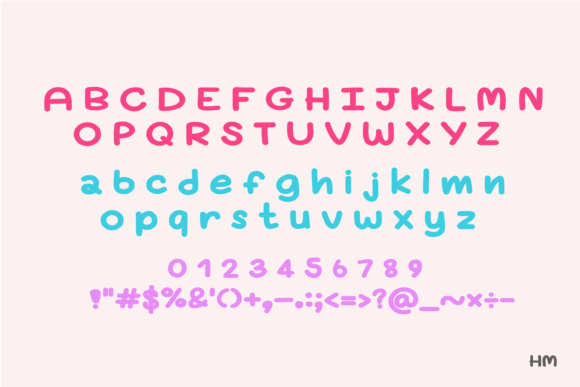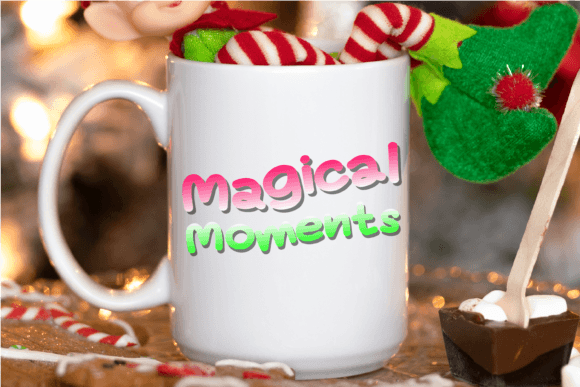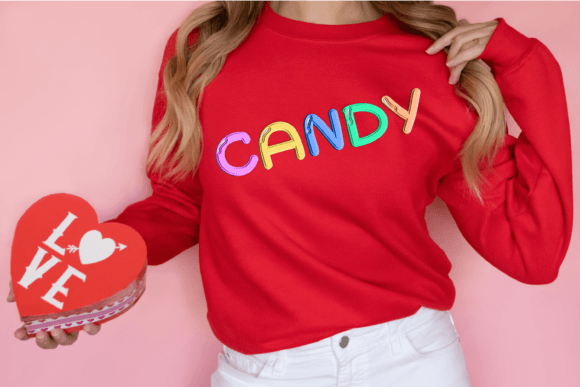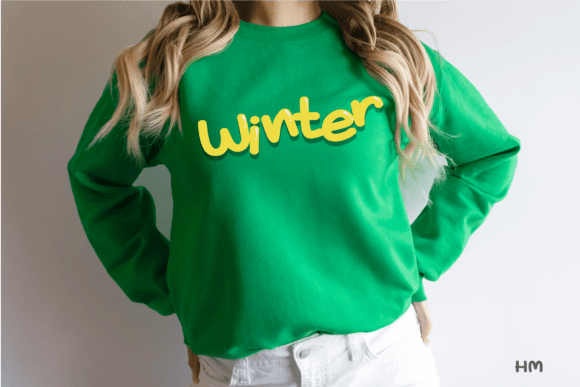
The Sweetest Addition to Your Designs: Candy Font
Have you ever stared at a blank canvas, feeling like a kid in a candy store, unsure of where to start? You know that moment when the possibilities are endless, and your imagination is bursting with ideas? That’s exactly where the magic begins – and with the right tools, your creations can come to life. Enter the delightful Candy Font, a typography treasure that’s sure to put a smile on your face.
This adorable font is more than just a pretty face; it’s a game-changer for designers. With its playful, bold, and colorful display, Candy Font is the perfect addition to any creative project. Whether you’re designing a logo, a social media graphic, or a entire brand identity, this font will bring a touch of whimsy and fun to your work.
Candy Font Key Features
- Font Family: Candy Font is a sans-serif font family designed for digital use.
- Character Count: The font includes a wide range of characters, including uppercase and lowercase letters, numbers, and punctuation marks.
- Unique Characteristics: Candy Font is known for its playful, cursive-like feel and rounded edges, making it suitable for modern and creative designs.
Candy Font Review
I recently had the chance to work with Candy Font, and I must say it was a unique experience. ✨ One of the things that worked well for me was the font’s playful and whimsical nature. It’s perfect for projects that require a touch of sweetness and fun. The font is highly customizable, allowing you to adjust the size, color, and even add special effects to make it stand out.
However, there are some limitations to consider ⚠️. The font’s versatility can also be a drawback, as it may not be suitable for more formal or professional projects. Additionally, some users may find the font’s complexity overwhelming, especially when it comes to customizing its various features.
Overall, I would recommend Candy Font for designers looking to add a pop of fun and creativity to their projects. While it may not be the best choice for every project, it’s definitely a valuable addition to any designer’s toolkit.
- Playful and whimsical design
- Compatible with multiple platforms and devices
- Relatively lightweight
Candy Font Practical Application Guide
Tips for Getting the Most Out of Candy Font
Use Candy Font to add a playful touch to your designs, especially for children’s products, party invitations, and social media graphics.
Experiment with different font sizes and colors to create a visually appealing effect.
Combine Candy Font with other creative elements, such as illustrations and graphics, to create a cohesive and engaging design.
Candy Font is perfect for:
Children’s party invitations and decorations
Food and beverage branding
Social media graphics and ads
Party and event marketing materials
Alternatives to Candy Font for Designers
Cream Soda is a cursive script font that is reminiscent of classic handwriting. It’s perfect for creating a nostalgic feel in your designs, especially when you need to add a touch of warmth and personality. Compared to Candy Font, Cream Soda has a more refined and elegant look, making it suitable for a wider range of designs, from wedding invitations to advertising materials.
Great Vibes is a modern, handwritten font that is ideal for adding a relaxed and casual feel to your designs. It’s perfect for creating a friendly and approachable tone in your branding, marketing materials, or social media campaigns. Compared to Candy Font, Great Vibes has a more laid-back and effortless vibe, making it a great choice for designers who want to create a youthful and energetic atmosphere.